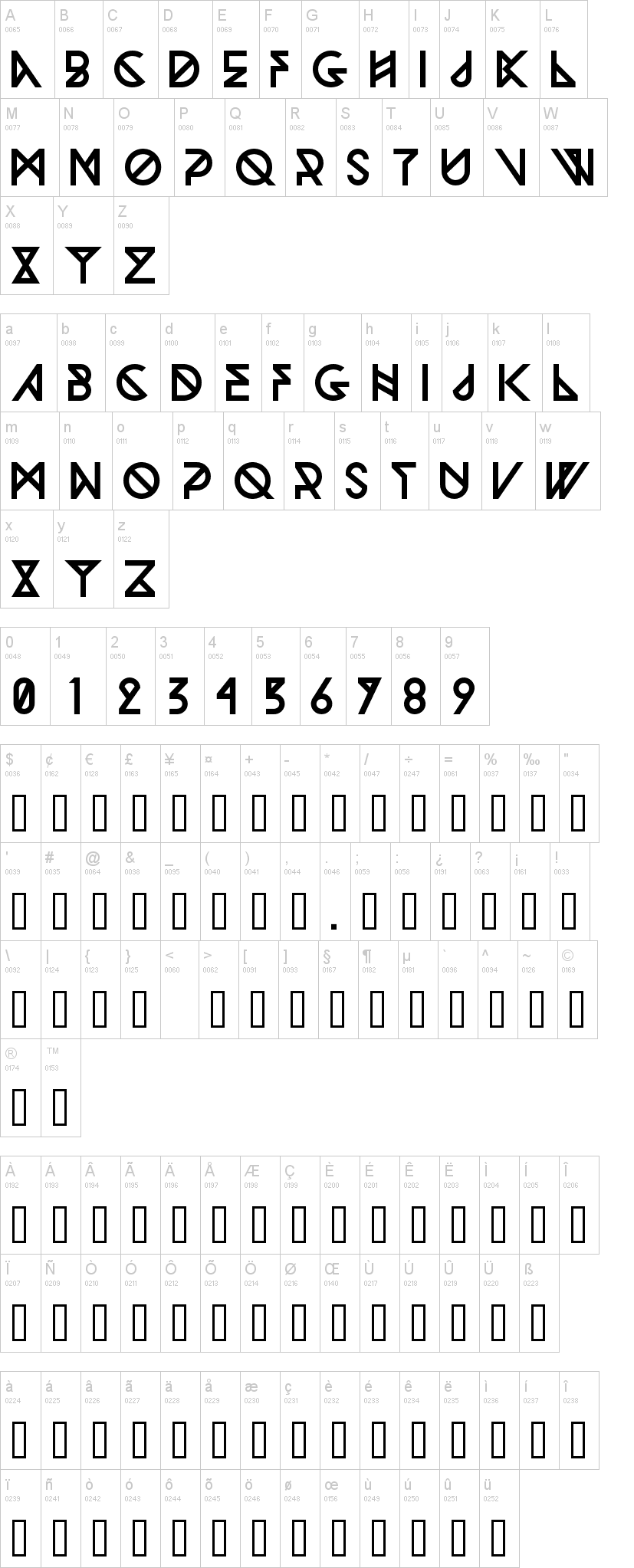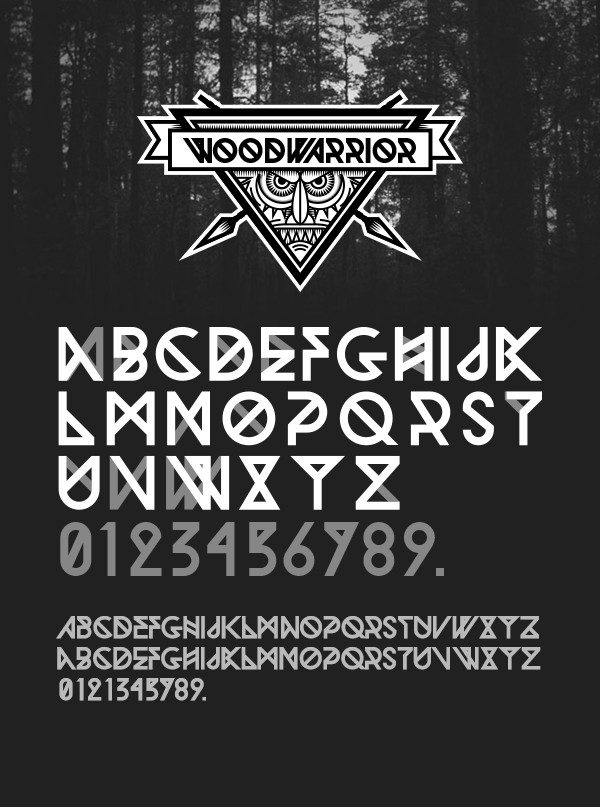
Шрифт Woodwarrior
Woodwarrior is a typeface inspired by the north, and the contrast between modern man made structures and untouched nature shaped by wind and ice alone.
Its all caps with alternative characters.